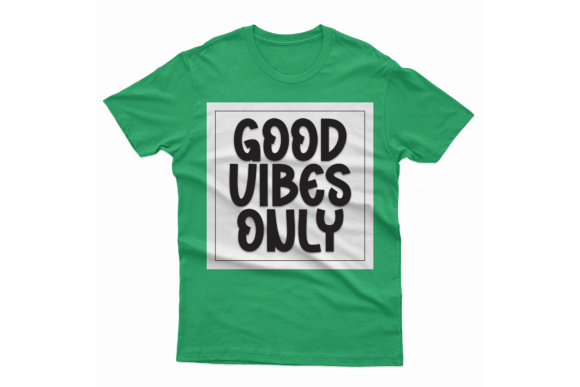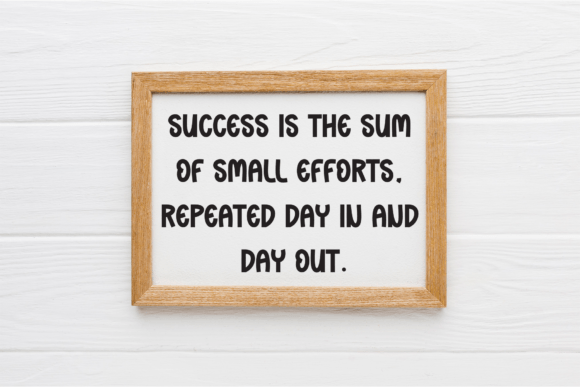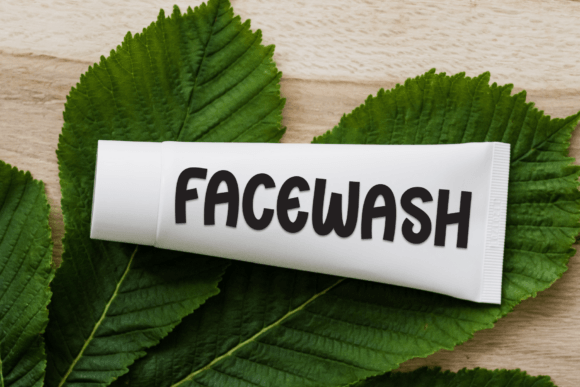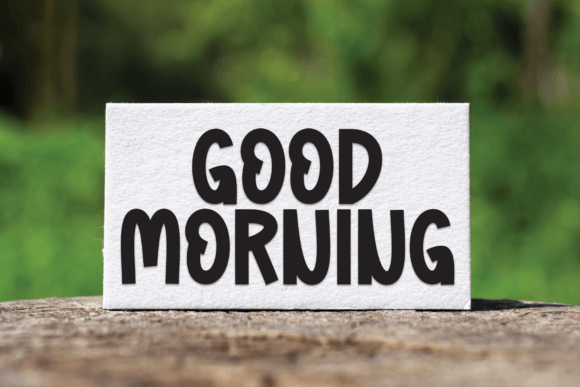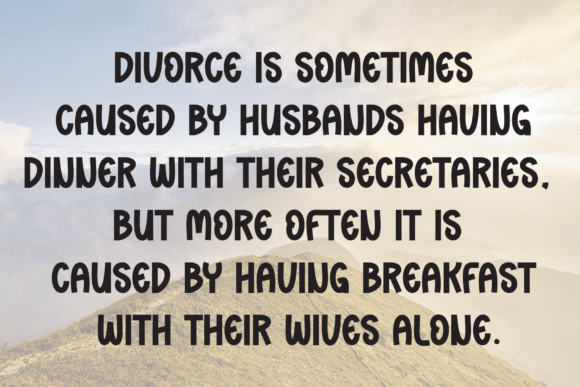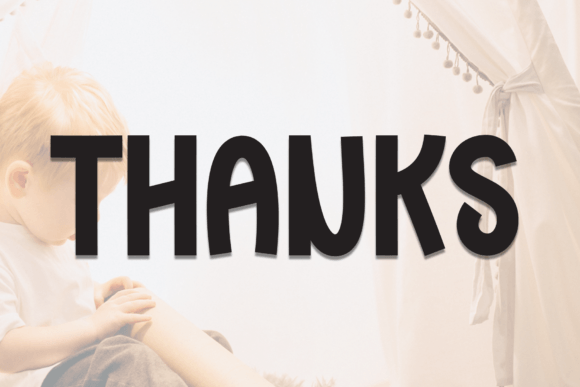
Baby Boho Font: Add a Touch of Whimsy to Your Designs
Are you looking for a font that can bring a sparkle of joy and warmth to your designs? Look no further than the Baby Boho Font, an irresistibly charming handwritten display font that’s perfect for adding a touch of whimsy to any project. In this article, we’ll take a closer look at the Baby Boho Font, its features, and how you can use it to elevate your designs.
What is Baby Boho Font?
The Baby Boho Font is a delightful handwritten display font that’s designed to exude a friendly and inviting ambiance. Its unique and fun lettering style makes it perfect for wedding invitations, greeting cards, or any creative design that calls for a dash of fun. Whether you’re a designer, crafter, or DIY enthusiast, this font is sure to capture your heart and inspire your creativity.
Key Features of Baby Boho Font
- Handwritten display font: The Baby Boho Font is a handwritten display font that’s designed to add a personal touch to your designs.
- Unique and fun lettering style: The font features a unique and fun lettering style that’s perfect for adding a touch of whimsy to your designs.
- Perfect for wedding invitations and greeting cards: The font’s friendly and inviting ambiance makes it perfect for wedding invitations, greeting cards, and other celebratory designs.
How to Use Baby Boho Font in Your Designs
The Baby Boho Font is a versatile font that can be used in a variety of designs, including:
- Wedding invitations: Add a touch of whimsy and romance to your wedding invitations with the Baby Boho Font.
- Greeting cards: Use the font to create fun and playful greeting cards for birthdays, holidays, and other special occasions.
- DIY crafts: The Baby Boho Font is perfect for DIY crafts, such as scrapbooking, journaling, and paper crafting.
- Digital designs: Use the font in your digital designs, such as social media graphics, blog posts, and website headers.
Tips for Getting the Most Out of Baby Boho Font
Here are some tips for getting the most out of the Baby Boho Font:
- Experiment with different colors: The Baby Boho Font looks great in a variety of colors, so don’t be afraid to experiment and find the perfect color for your design.
- Pair with other fonts: The Baby Boho Font pairs well with other fonts, so try pairing it with a bold font for a fun and playful look.
- Use it sparingly: The Baby Boho Font is a statement font, so use it sparingly to add a touch of whimsy to your designs.